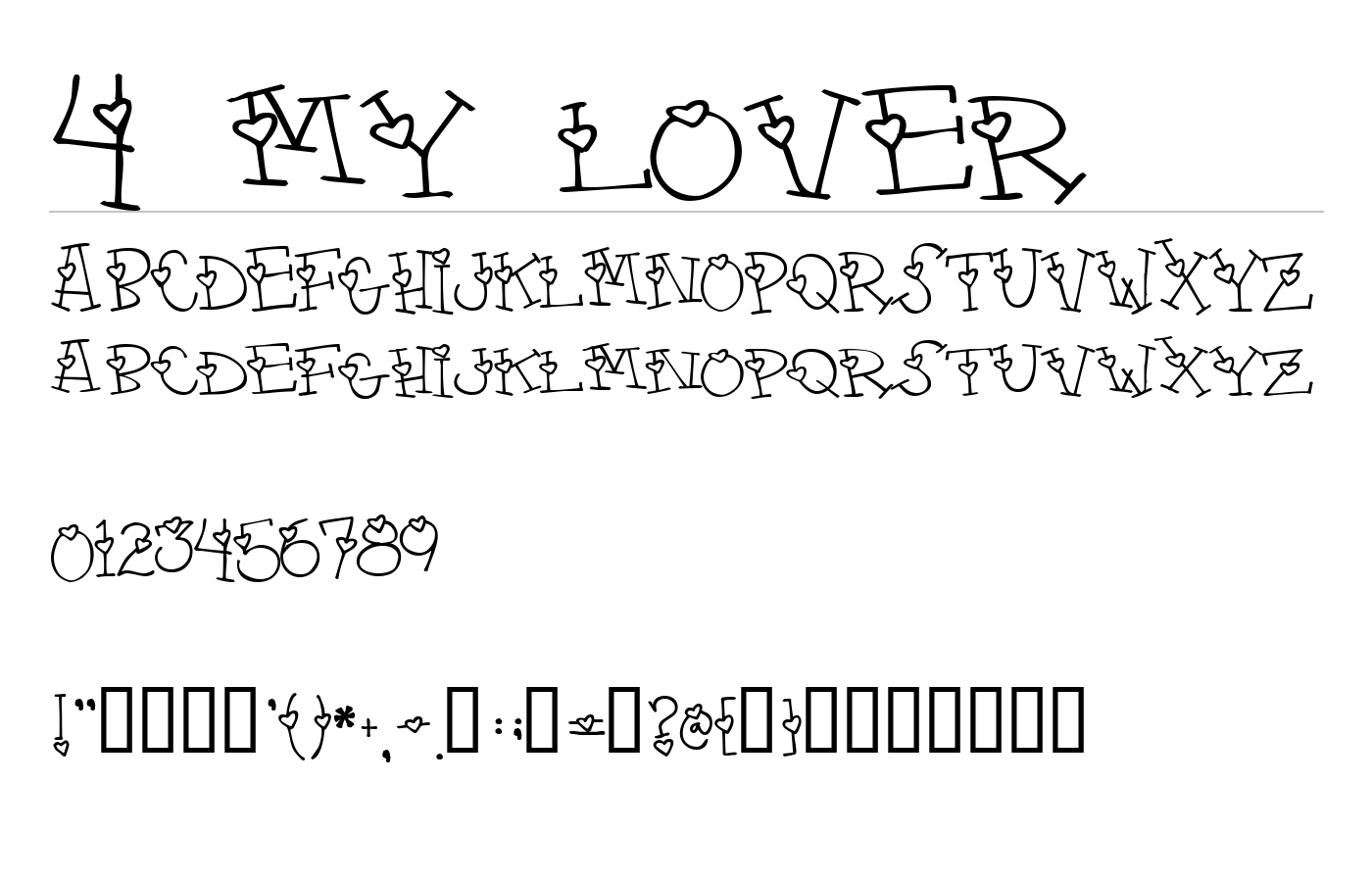
4 my lover is a playful, hand-drawn serif font with quirky, uneven letterforms adorned by small heart shapes, adding a whimsical and romantic touch. Its light weight and slightly condensed style give it a casual and friendly personality, perfect for projects that want to evoke warmth and affection. This font works well for creative invitations, greeting cards, and charming branding that needs a fun, personal feel.
4 my lover Font